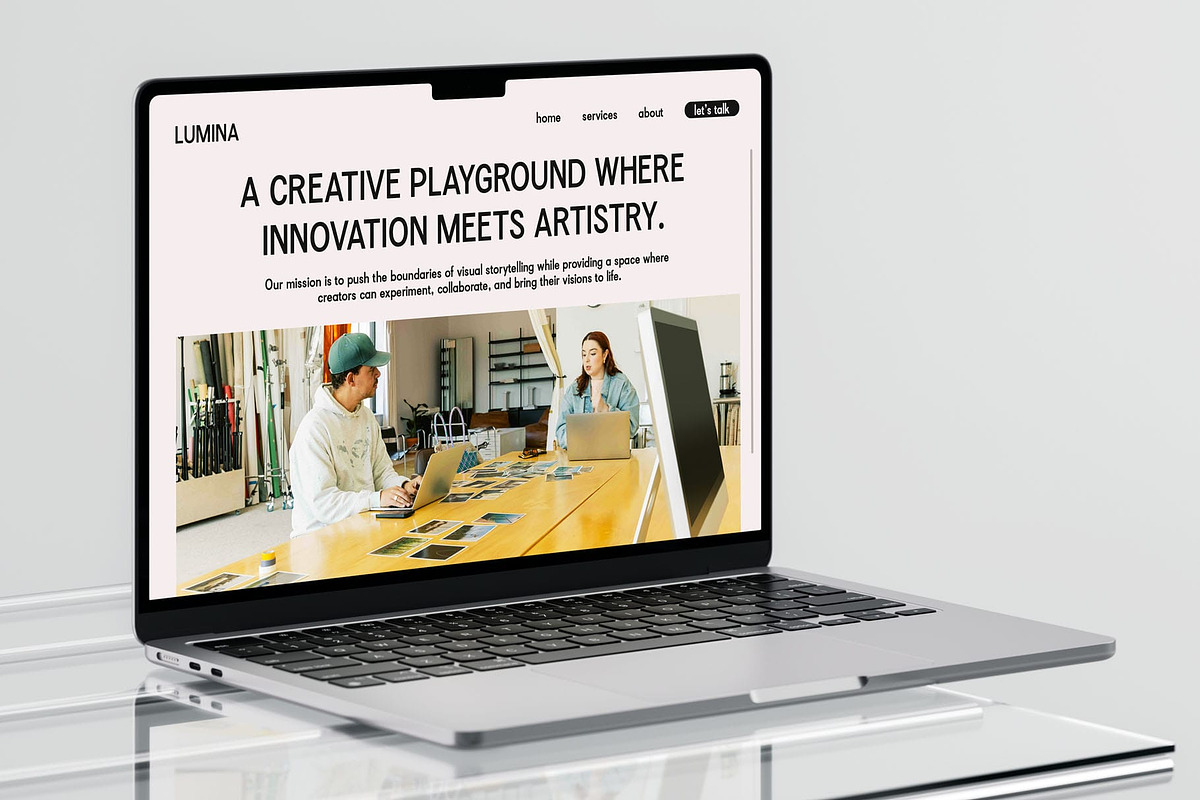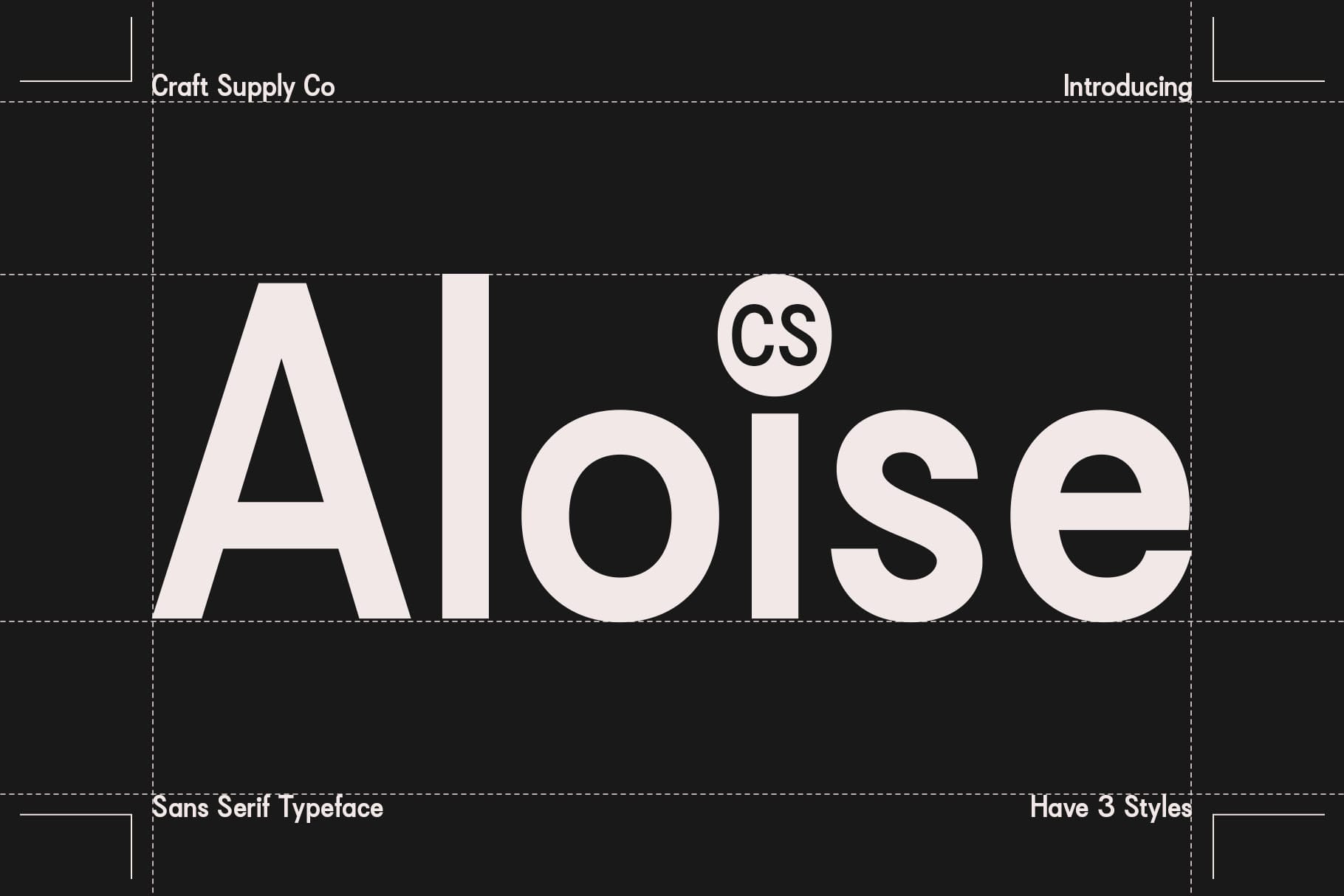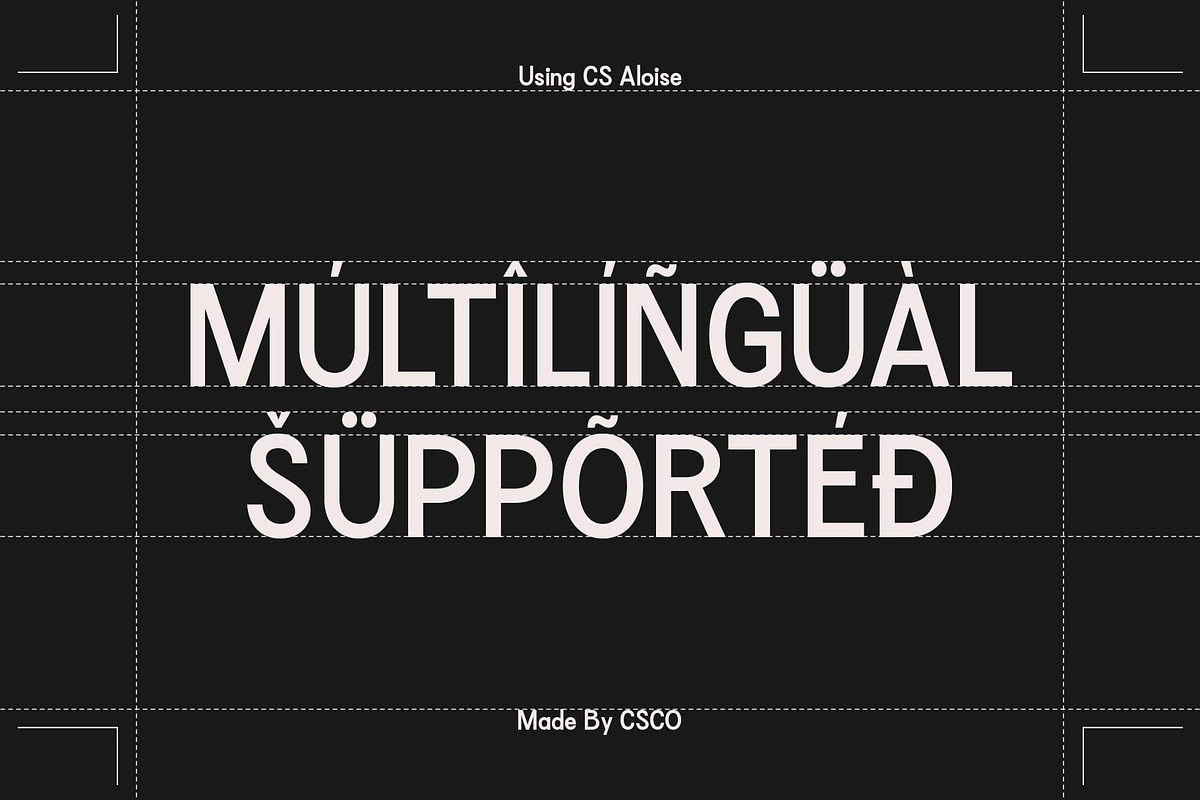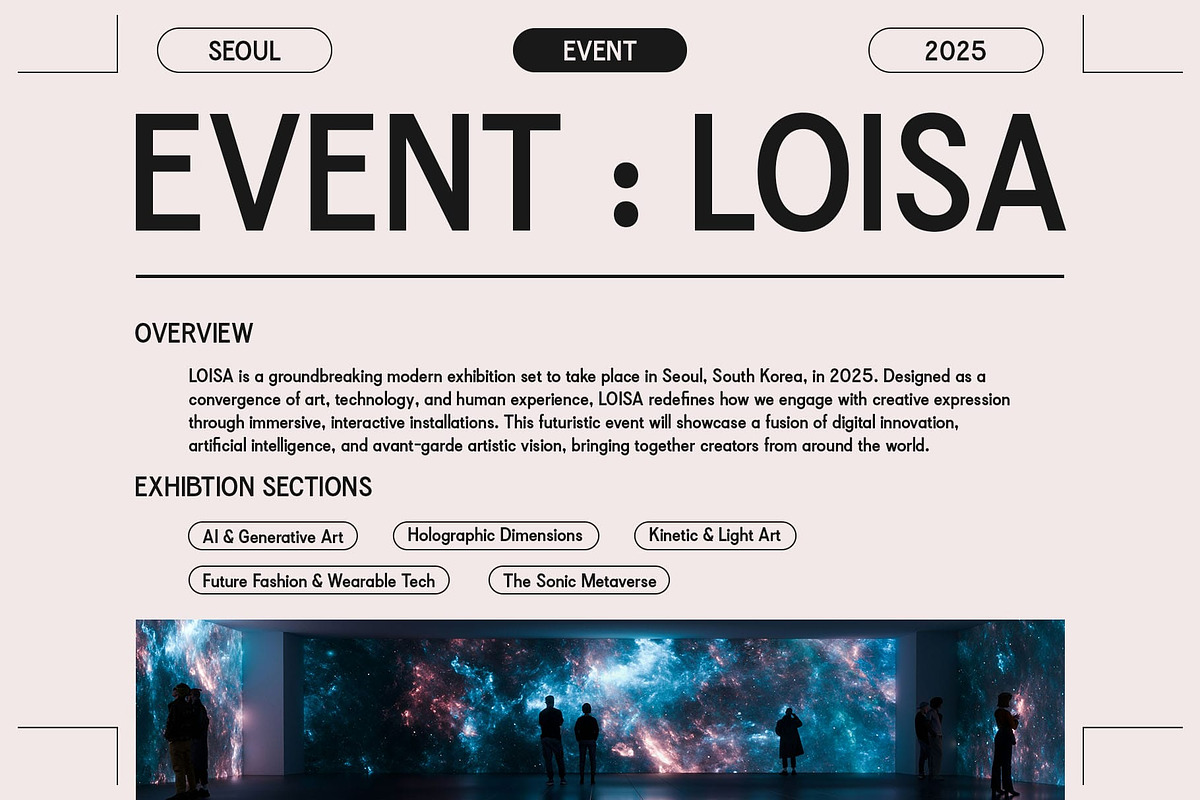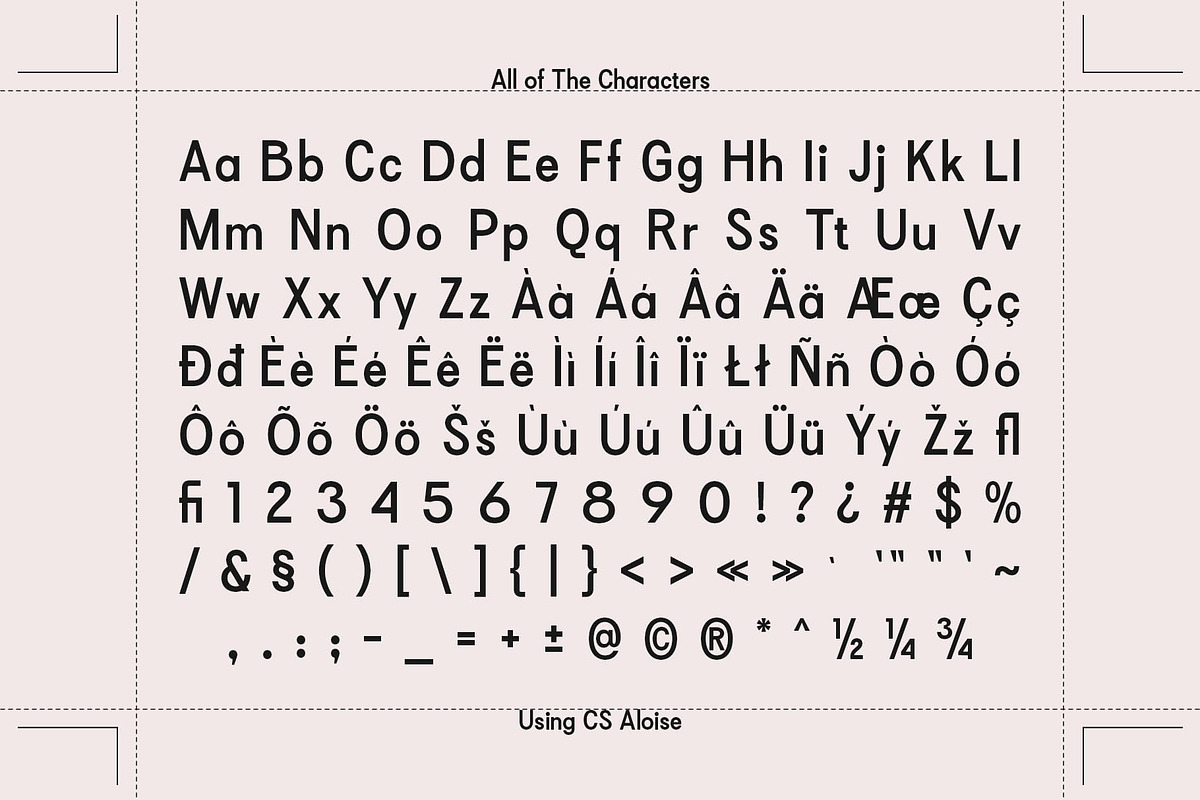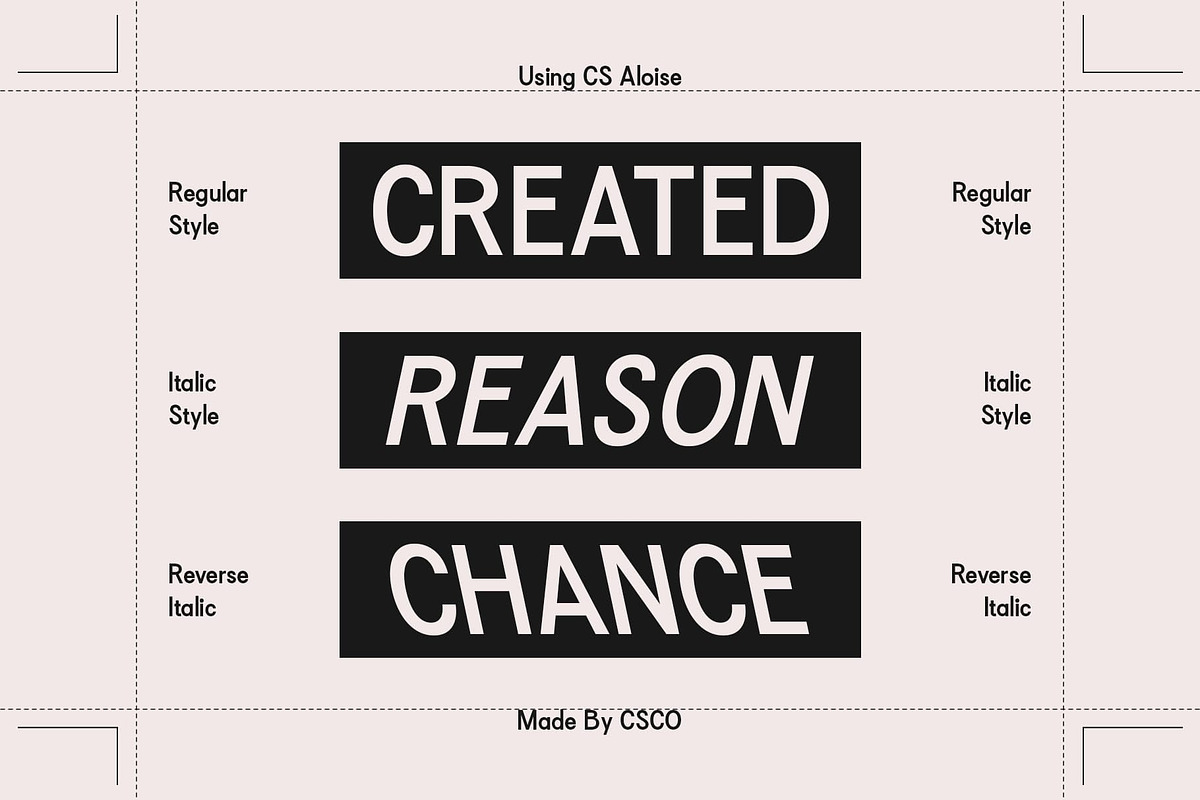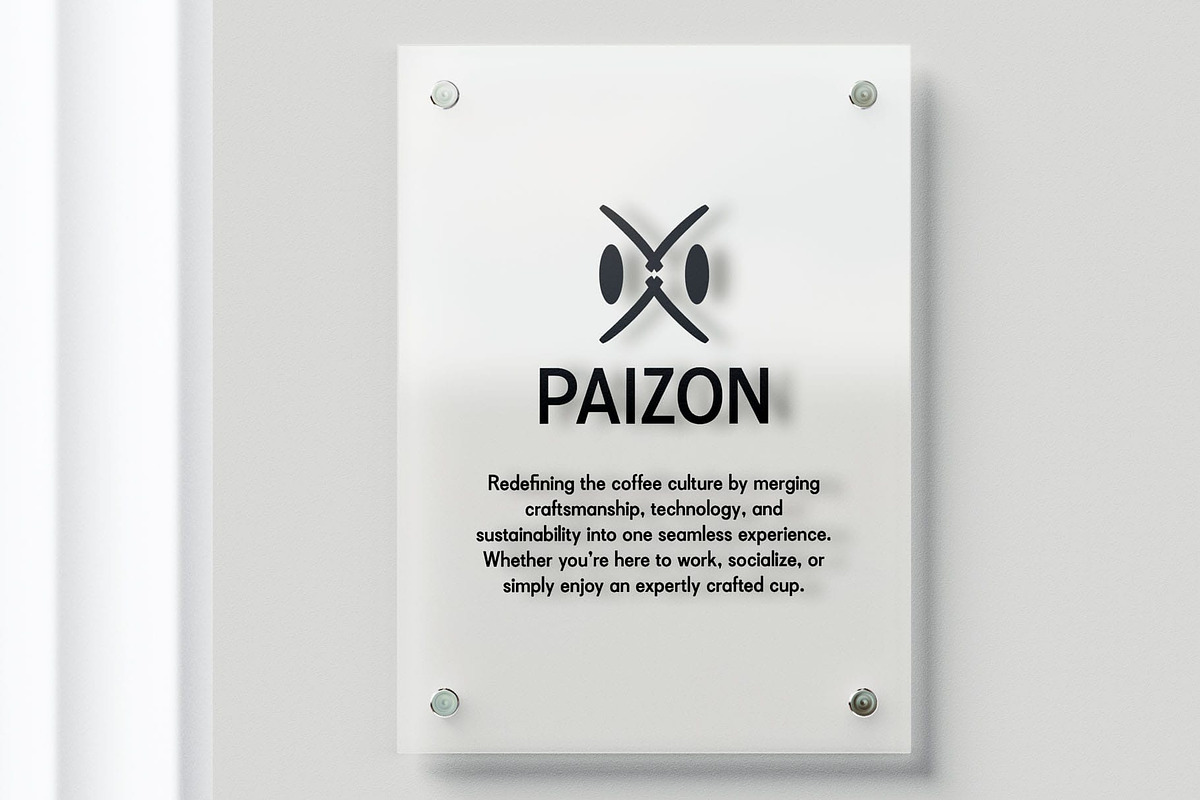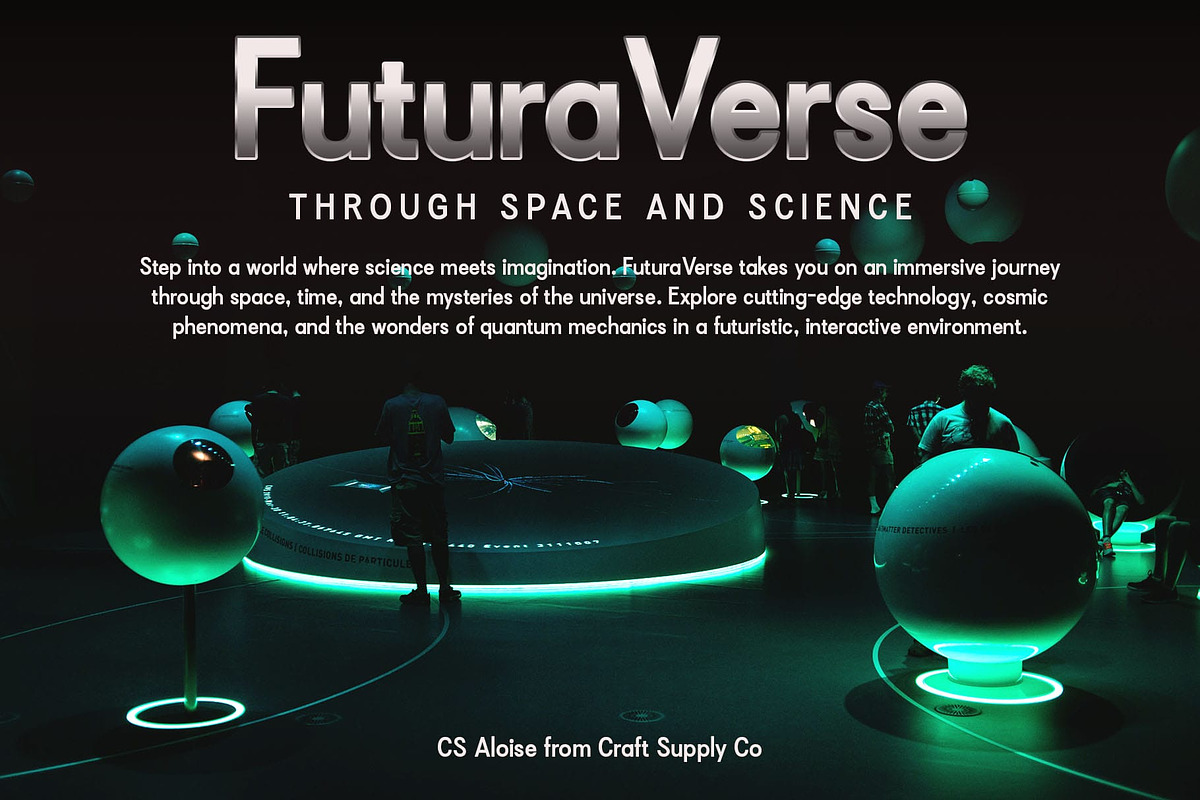
CS Aloise – Contemporary Font
CS Aloise – Contemporary Font: Modern Precision with a Timeless Touch
Clean and Professional Sans-Serif Design CS Aloise – Contemporary Font is a modern sans-serif typeface that embodies precision, clarity, and sophistication. Designed with a geometric structure, it delivers a clean and balanced aesthetic that enhances visual harmony in any design. Its refined proportions and carefully crafted letterforms create a sleek and professional impression, making it perfect for corporate and creative applications.
Minimalist Yet Sophisticated Appeal With its contemporary yet understated elegance, CS Aloise strikes the perfect balance between minimalism and sophistication. The font’s streamlined structure ensures maximum readability while maintaining a stylish and polished look. Its versatility allows it to blend seamlessly into branding projects, editorial layouts, and digital platforms, offering a refined typographic experience.
Ideal for Corporate and Editorial Design CS Aloise is an excellent choice for corporate branding, editorial compositions, and professional presentations. Its precise letterforms convey reliability and modernity, making it suitable for business logos, reports, and website typography. Whether used for headlines, body text, or UI/UX interfaces, it ensures a cohesive and contemporary appearance.
Versatile for Digital and Print Applications Designed for adaptability, CS Aloise performs exceptionally well across various media formats, from digital screens to high-quality print materials. Its structured yet approachable design makes it a go-to font for designers seeking a sophisticated and future-forward aesthetic.
- CS Aloise Regular
- CS Aloise Italic
- CS Aloise Reverse Italic